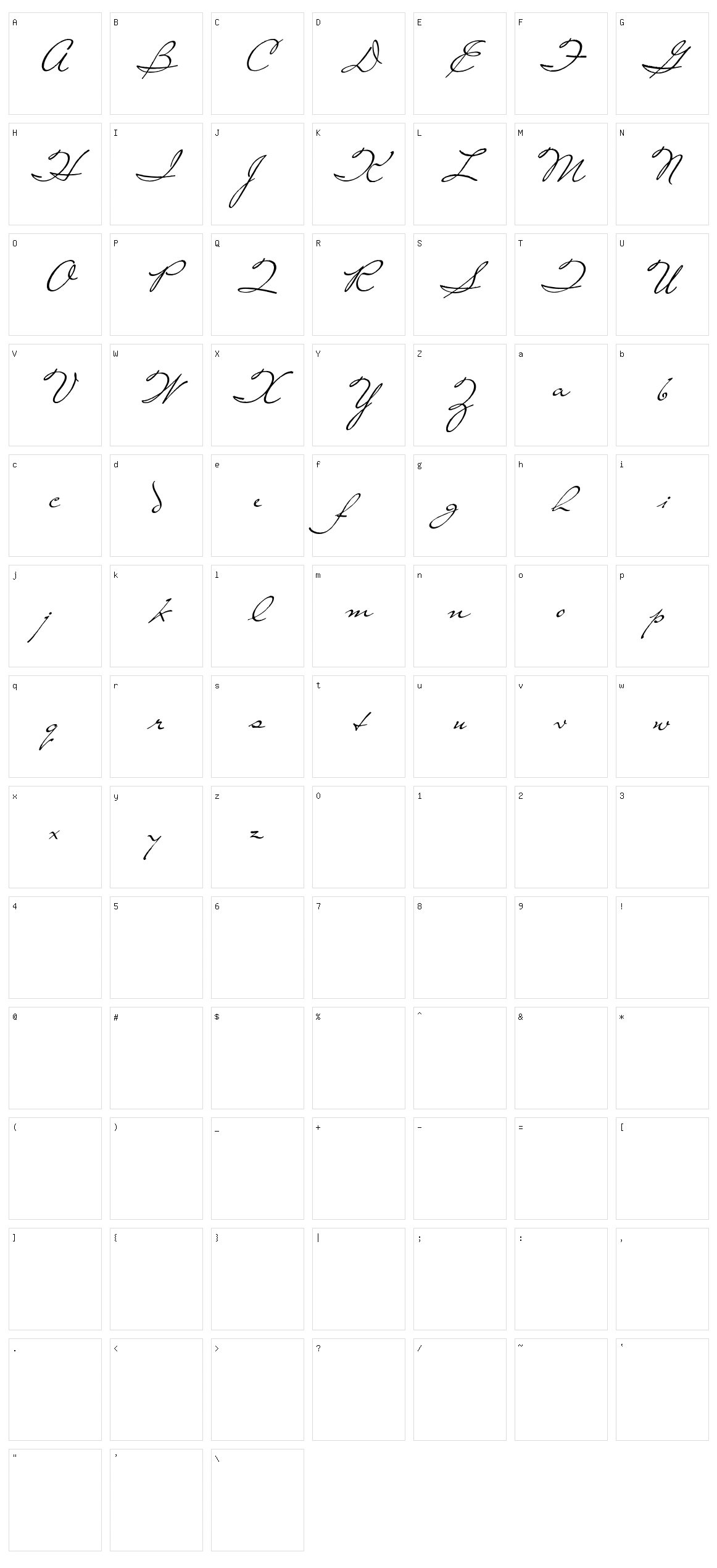
The free font Living Together is carefully designed by Intellecta Design, showcasing a thoughtful balance of creativity and usability and falls under the Script font style. When you download the ZIP file, it contains only 1417.15 KB of font files, making it lightweight and quick to download. Please review the license details below to understand permitted usage and distribution rights. If license information is not available, we recommend using this font for personal projects only or contacting the author directly for commercial usage permissions.